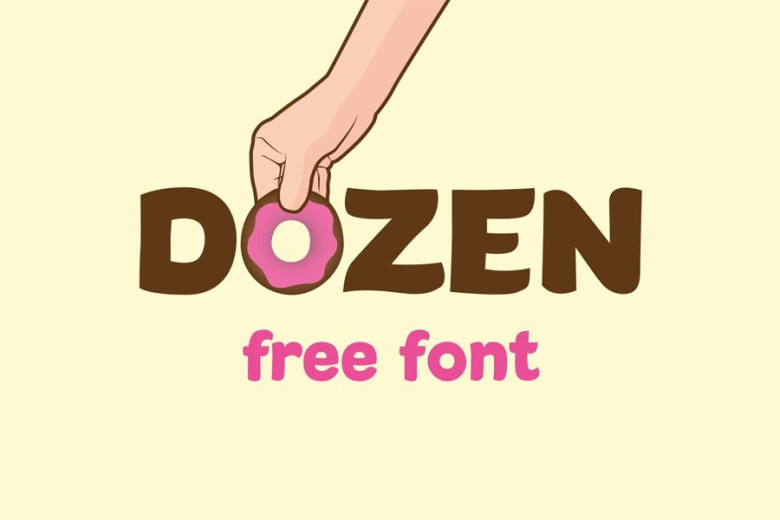
Dozen Font
Here’s Dozen, a free and cute font designed by Kenny LKC for the love of both doughnut and font. Its fat and roundish personality. Dozen will be best suited for creating attractive headlines. You can feel free to use this font for both commercial as well as personal projects.